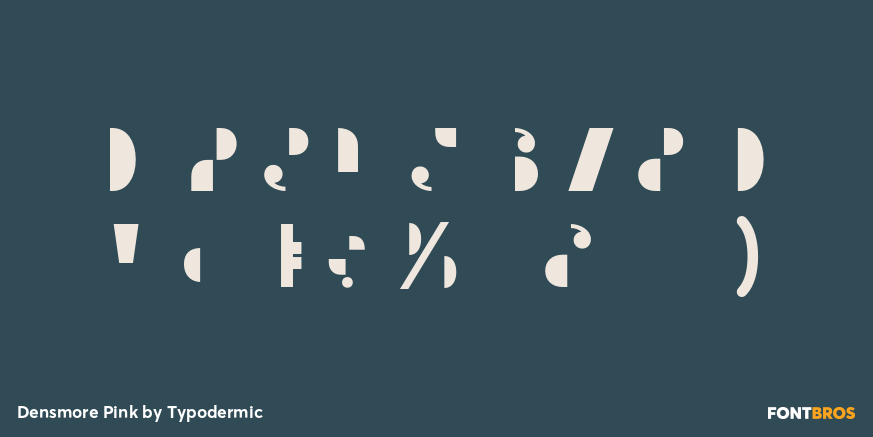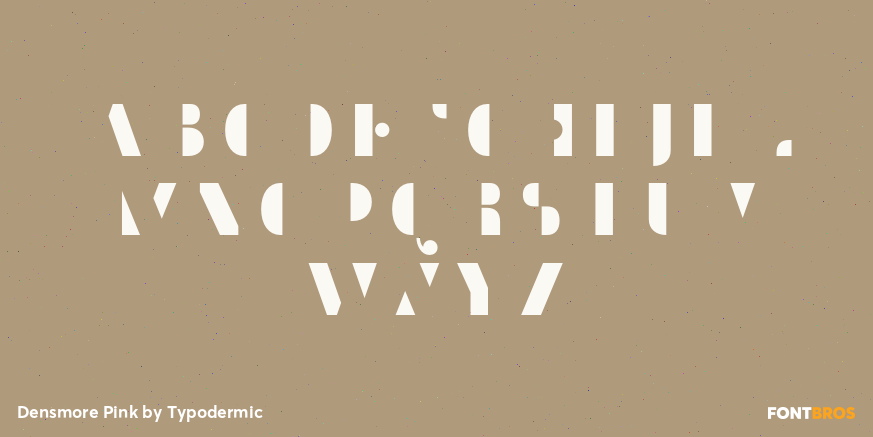
Densmore Pink
Buy NowDensmore Pink supplies the complementary half of Densmore’s two-color alphabet. It locks precisely into Densmore Blue to complete each character, but can also be offset, flashed, masked, or printed separately for deliberate misregistration. “Pink” is simply the layer name; designers are free to assign it any color or finish.
Use Pink as the changing accent in flavor systems, fragrance extensions, retailer exclusives, festival merchandise, footwear collaborations, and animated title sequences. Give it fluorescent ink, varnish, foil, a partner’s brand color, or a moving reveal while Blue holds the other half of the structure.